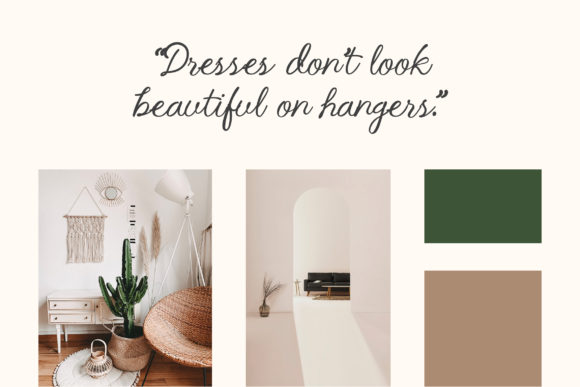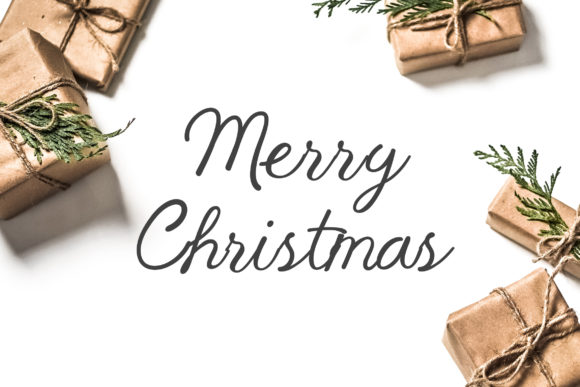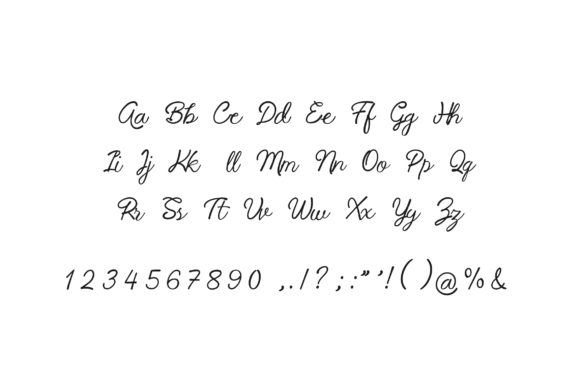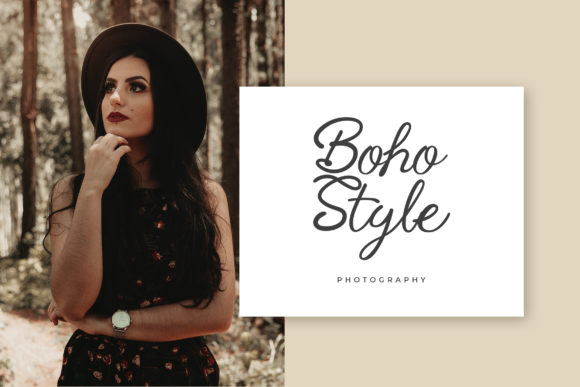
Bond Rotterdam Font: Elevate Your Designs with Elegance and Sophistication
In the world of typography, fonts play a crucial role in conveying the tone and personality of a brand or design. For designers and crafters seeking a cursive and lovely script font that exudes elegance and sophistication, Bond Rotterdam is an excellent choice. This stunning font is defined by its smooth curves, making it perfect for fashion branding, editorial designs, and a wide range of creative projects.
The Characteristics of Bond Rotterdam Font
Bond Rotterdam is a beautifully crafted script font that boasts a unique and captivating style. Its smooth curves and fluid lines create a sense of movement and fluidity, making it ideal for designs that require a touch of elegance and refinement. The font’s cursive nature gives it a personal and approachable feel, perfect for connecting with audiences and conveying a sense of warmth and sophistication.
Perfect for Fashion Branding and Editorial Designs
Fashion branding and editorial designs require a font that is both stylish and sophisticated. Bond Rotterdam font delivers on both fronts, providing a level of elegance and refinement that is hard to match. Whether you’re designing a logo, brochure, or magazine spread, this font is sure to make a lasting impression. Its versatility and adaptability make it an excellent choice for a wide range of applications, from high-end fashion brands to lifestyle and beauty publications.
Why Choose Bond Rotterdam Font?
So, why should you choose Bond Rotterdam font for your next design project? Here are just a few compelling reasons:
- Elegance and Sophistication: Bond Rotterdam exudes elegance and sophistication, making it perfect for high-end designs and luxury brands.
- Versatility: This font is incredibly versatile and can be used for a wide range of applications, from fashion branding to editorial designs.
- Easy to Read: Despite its cursive nature, Bond Rotterdam is easy to read and understand, making it perfect for body text and headlines.
- Unique and Memorable: This font has a unique and memorable style that will help your designs stand out from the crowd.
Tips for Using Bond Rotterdam Font
To get the most out of Bond Rotterdam font, here are a few tips to keep in mind:
- Use it as a Headline Font: Bond Rotterdam is perfect for headlines and titles, where its elegance and sophistication can really shine.
- Pair it with a Sans-Serif Font: For body text, consider pairing Bond Rotterdam with a clean and simple sans-serif font to create a beautiful contrast.
- Experiment with Font Sizes: Don’t be afraid to experiment with different font sizes to create visual interest and hierarchy in your designs.
In conclusion, Bond Rotterdam font is a stunning script font that is perfect for designers and crafters seeking to add a touch of elegance and sophistication to their designs. With its smooth curves, versatility, and ease of use, this font is sure to become a favorite in your design arsenal. Whether you’re working on a fashion branding project, editorial design, or simply looking for a beautiful font to add to your collection, Bond Rotterdam is an excellent choice. So why wait? Add it confidently to your projects and experience the results for yourself.